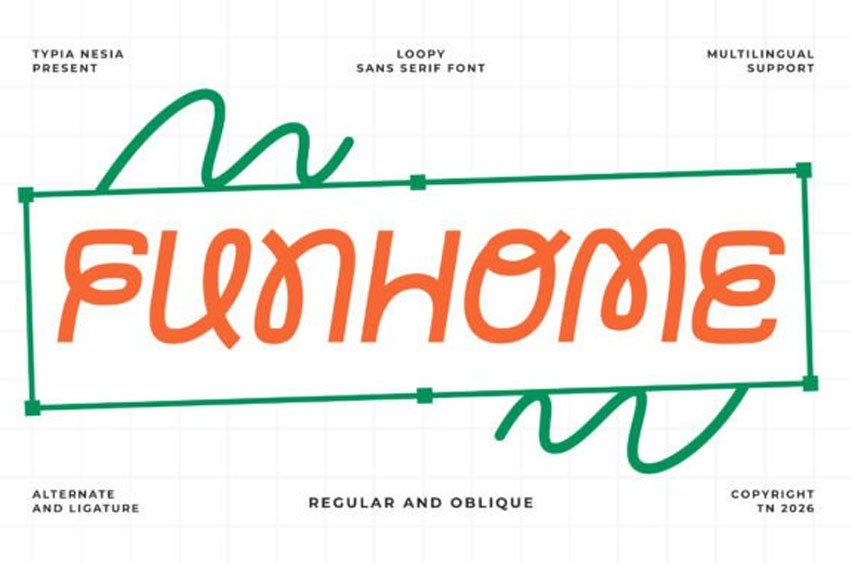
Funhome Font Inject a sense of creative play and loopy personality into your work with the Funhome font, a loopy sans serif that defies the ordinary.
This Funhome typeface is a celebration of fluidity, featuring whimsical, swash-like terminals and circular ligatures that create a sense of continuous motion. Unlike traditional static fonts, the Funhome font feels alive and hand-drawn, making it a perfect match for brands that value friendliness, creativity, and approachable design. It comes in both Regular and Oblique styles, giving you the flexibility to shift the energy of your layout from stable to dynamic in an instant.
The Funhome typeface is packed with alternates and ligatures, allowing you to customize your text to feel like a bespoke piece of lettering. This Funhome font is an ideal choice for nursery decor, children’s book titles, creative agency branding, and playful packaging for snack foods or toys.
Because it supports multiple languages, it is a global solution for any project that needs a touch of “loopy” charm. Pair it with bright, secondary colors and geometric grid layouts to create a balanced, modern look that remains fun and engaging for all ages.